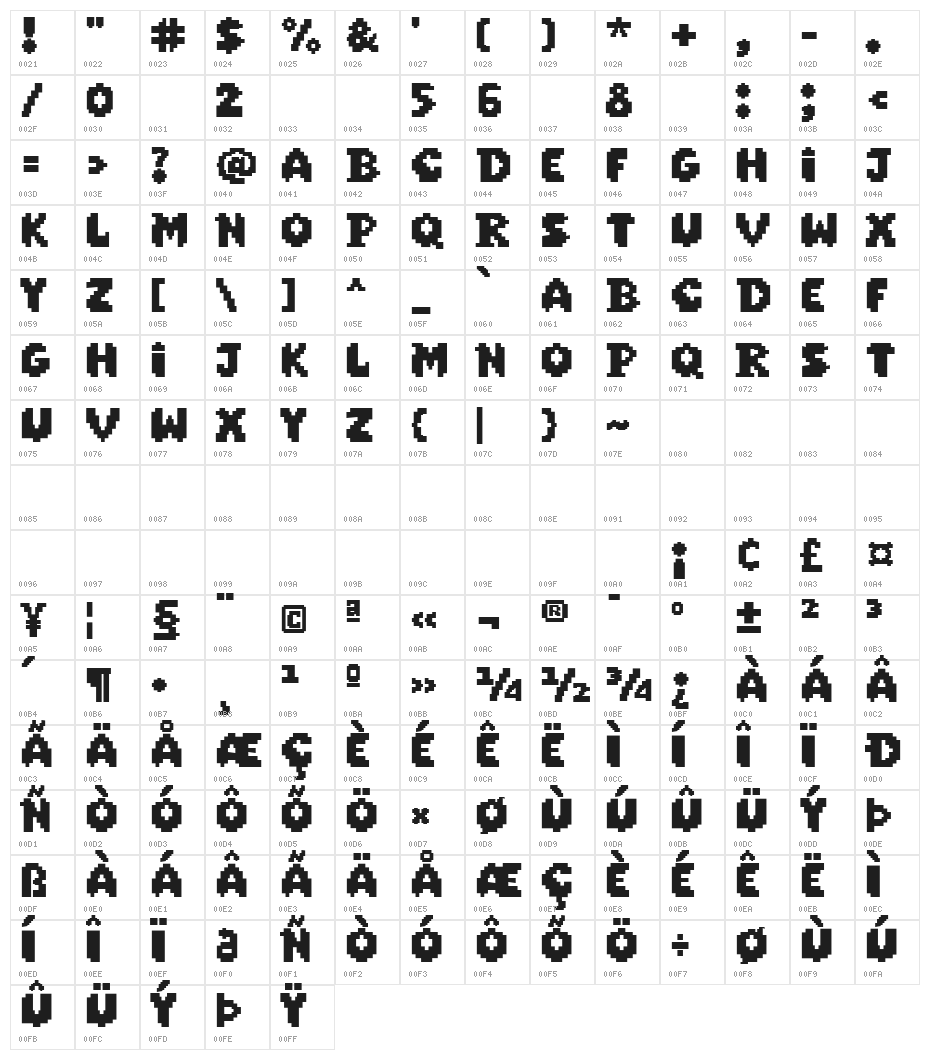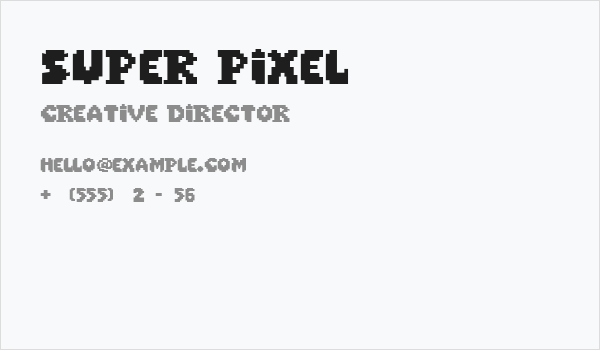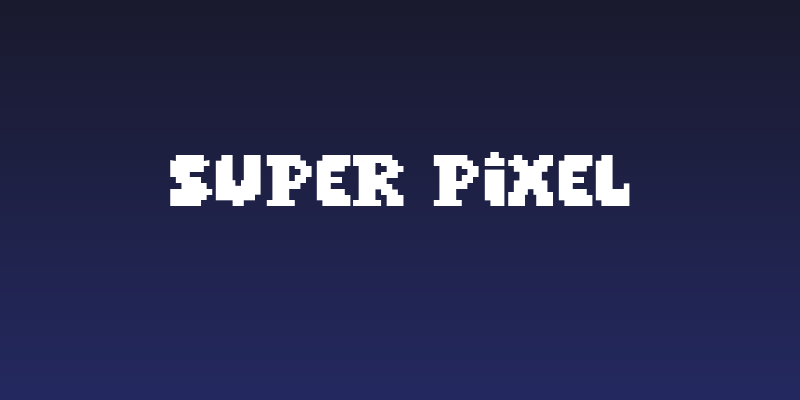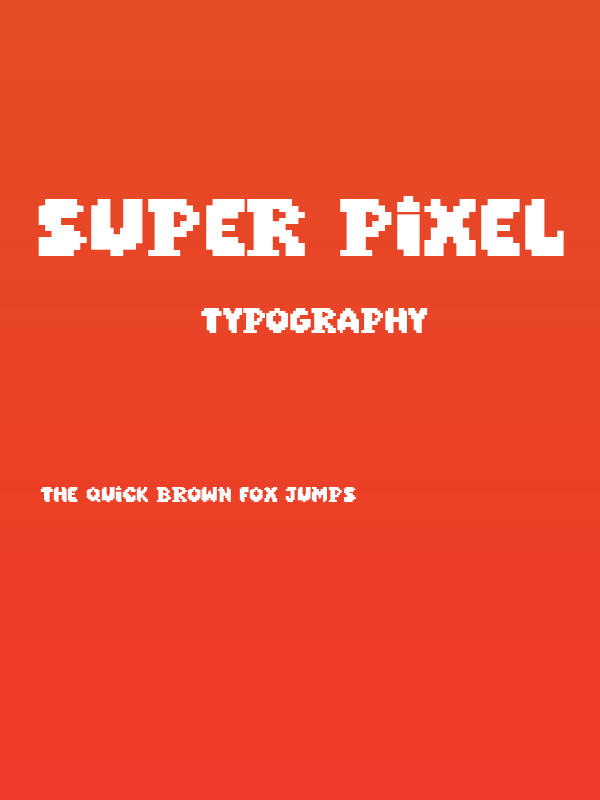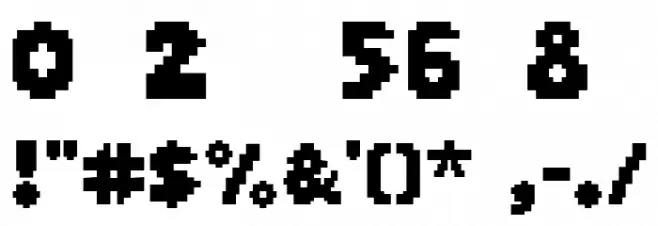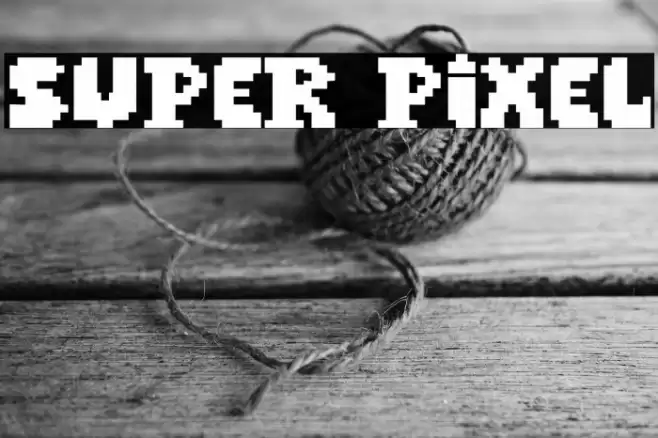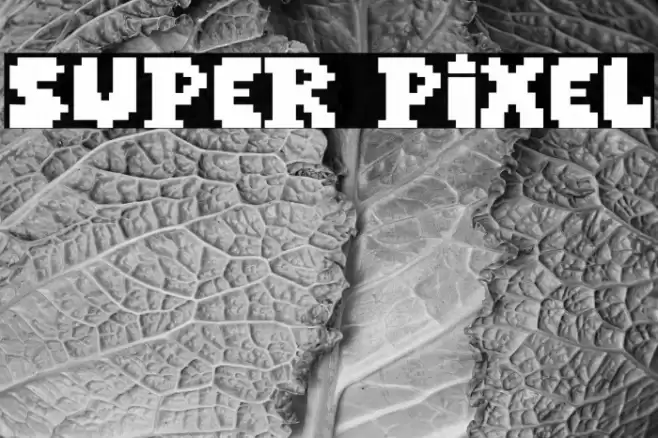
Super Pixel Font
Super Pixel Description
This font features a bold, pixelated design reminiscent of classic video game graphics. Each character is constructed with a blocky, grid-like appearance, creating a nostalgic and retro aesthetic. The uppercase and lowercase letters maintain a consistent style, with sharp edges and uniform thickness. Numbers and special characters follow the same pixelated theme, ensuring a cohesive look across all elements. The font's distinct style makes it ideal for projects that aim to evoke a sense of nostalgia or pay homage to early digital art forms.
| Overall Style | Retro, Nostalgic |
| Proposed Projects | Perfect for video game designs, retro-themed posters, digital art projects, and any creative work that seeks to capture the essence of early digital graphics. |